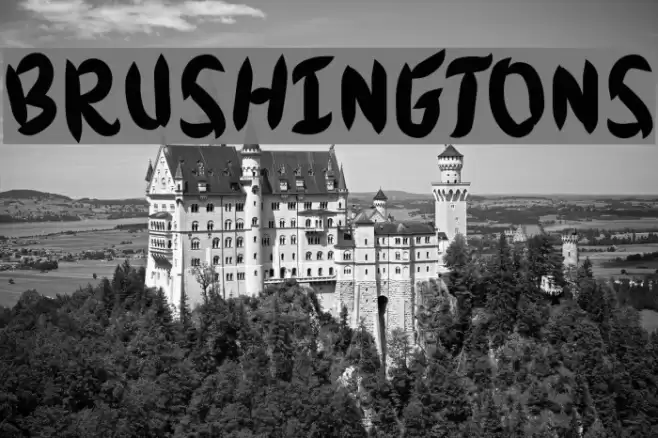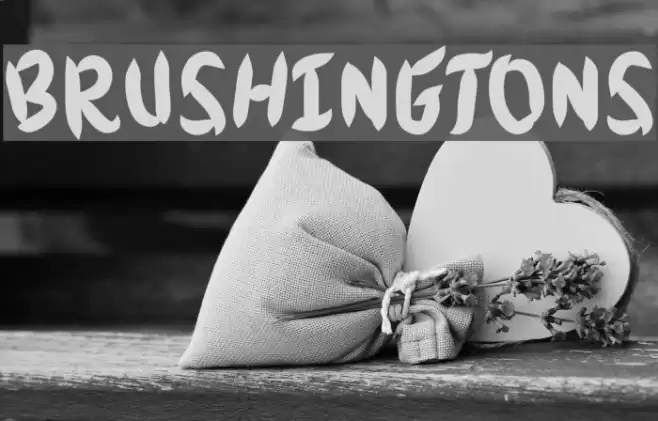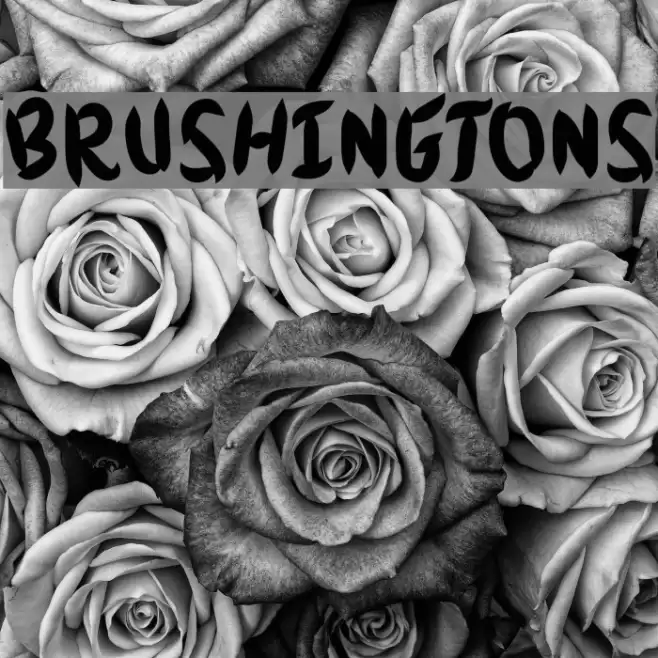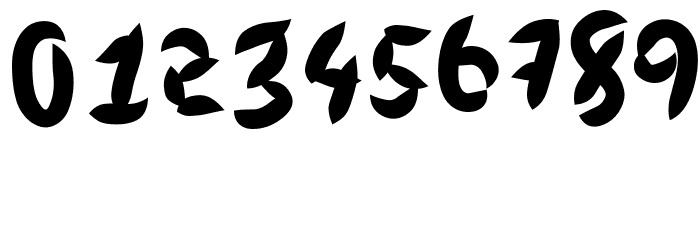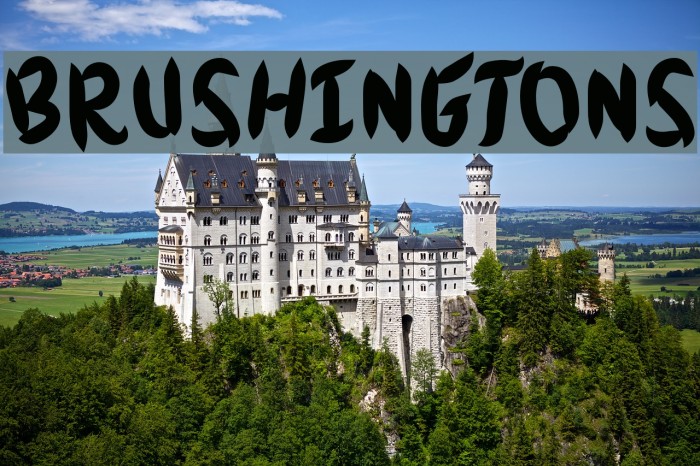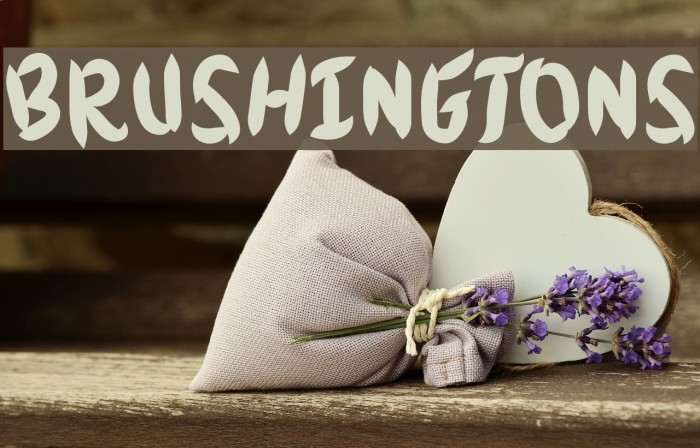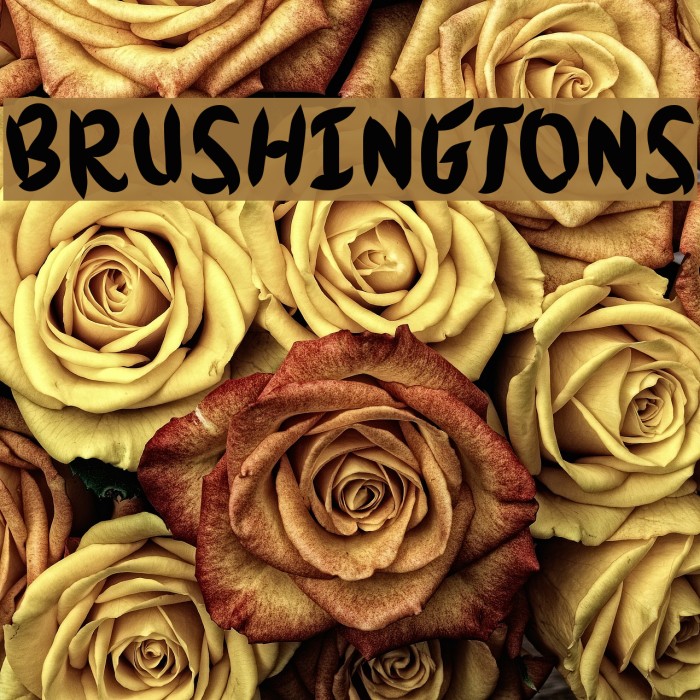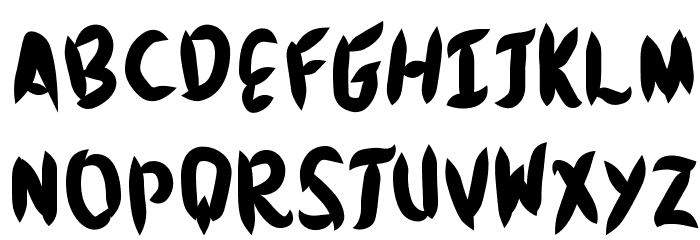
Brushingtons Font
Brushingtons Description
This font exhibits a bold, brush-like style with a dynamic and energetic appearance. The characters are crafted with thick strokes that vary in width, giving them a hand-painted feel. The edges are slightly rough, enhancing the organic and artistic nature of the design. The uppercase and lowercase letters maintain a consistent flow, while the numerals and special characters integrate seamlessly with the overall aesthetic. This font is ideal for projects that require a creative and expressive touch, such as artistic branding, posters, or invitations.
A bold, brush-style font with dynamic, hand-painted strokes from Messy fonts.